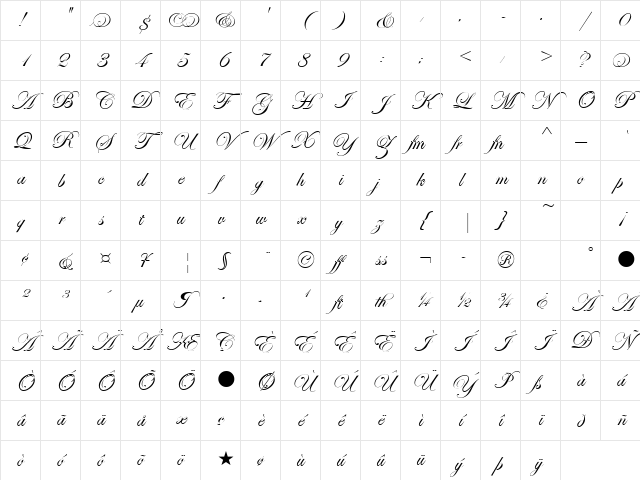
Edwardian Scr Alt ITC TT Regular
Design Context for Edwardian Scr Alt ITC TT
Edwardian Scr Alt ITC TT is a composed and adaptable typeface that performs quietly and consistently across a wide range of design contexts.